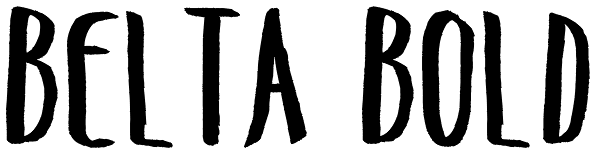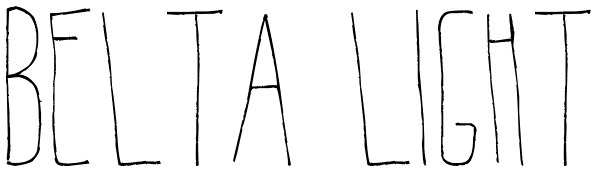
Belta
Belta is a decorative all-caps handwritten font, perfect for display use. It is available in light, regular and bold, providing a wide range of possibilities and combinations since the glyphs vary from one style to another, allowing a more informal...